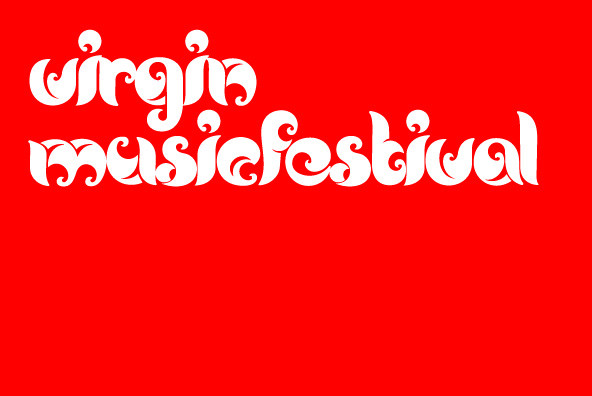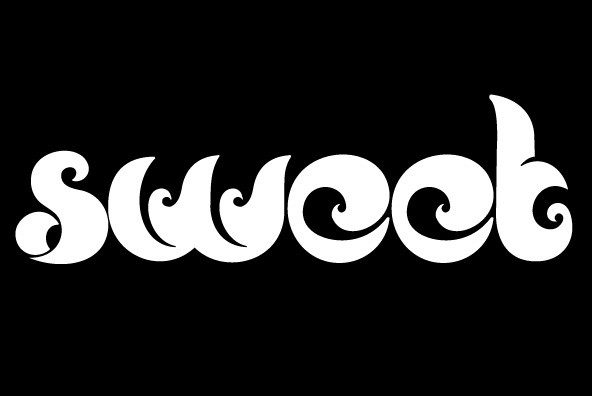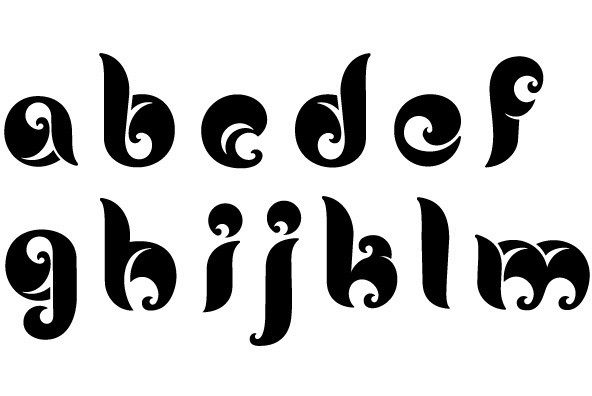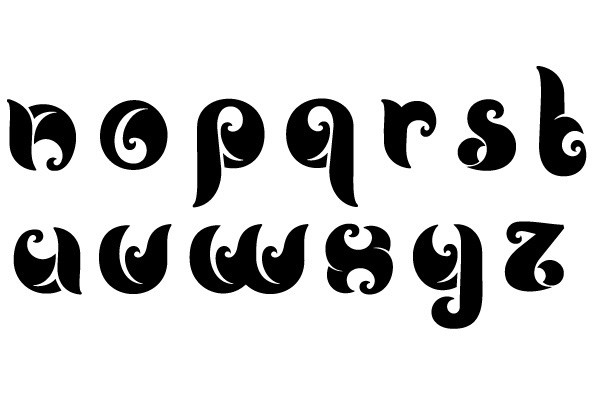
Foundry: Fontfabric
Noveu is custom font containing curls and ornamental elements implemented within itself. The typeface bring us some kind of art nouveau feeling in new interpretation.